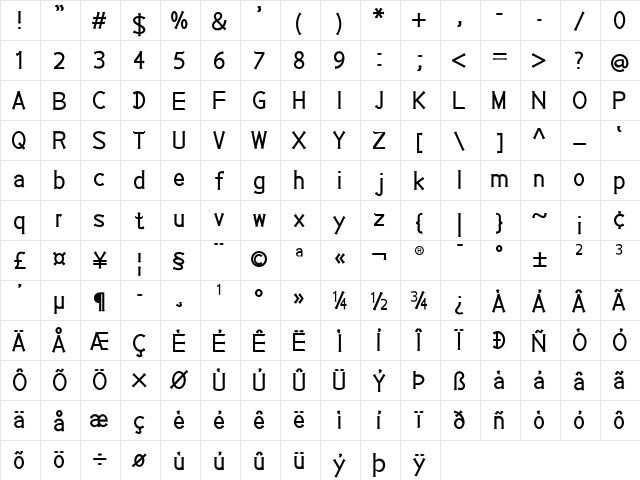
EP Roundie Regular
Design Context for EP Roundie Typeface
EP Roundie uses gentle rounded endings to create a warm, inviting typographic personality — less corporate than geometric sans, more refined than playful display fonts.
Well-suited to UI design, mobile interfaces, and any brand that wants approachability without sacrificing clarity.
Font Pairing: Pairs well with a rounded or humanist sans for body copy, maintaining the friendly tone without relying on EP Roundie to carry extended reading.
Pro Tip: Use EP Roundie for UI elements, app interfaces, and anywhere a friendly, approachable tone needs to be maintained without sacrificing clarity.